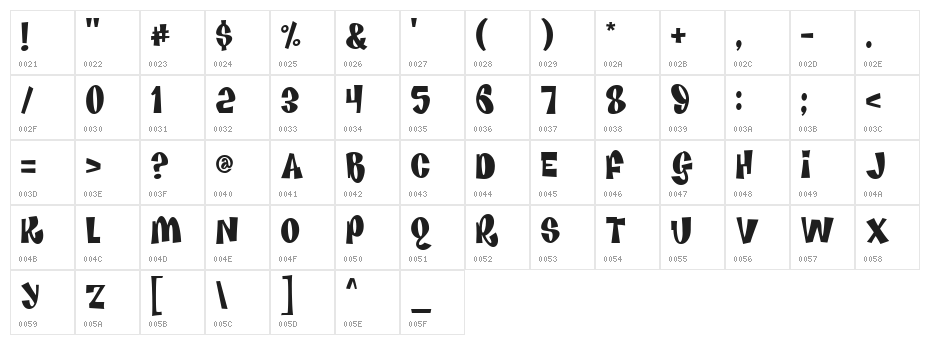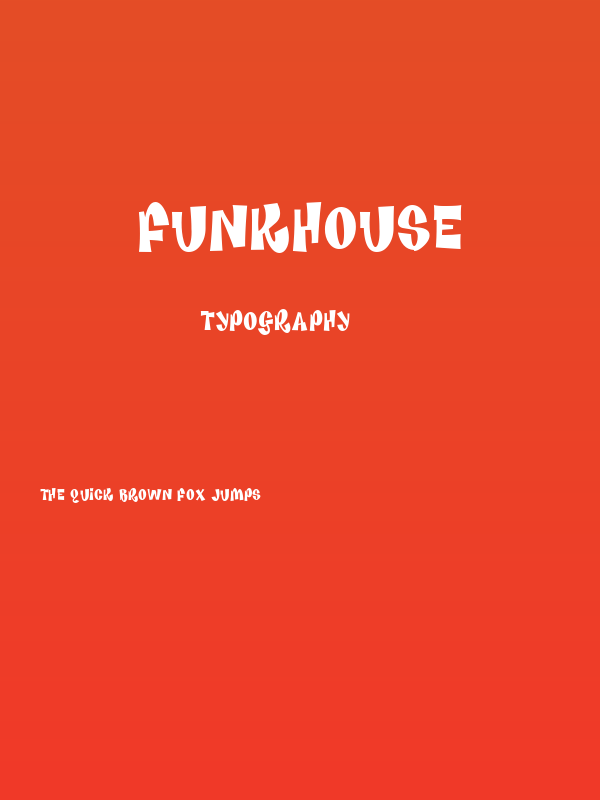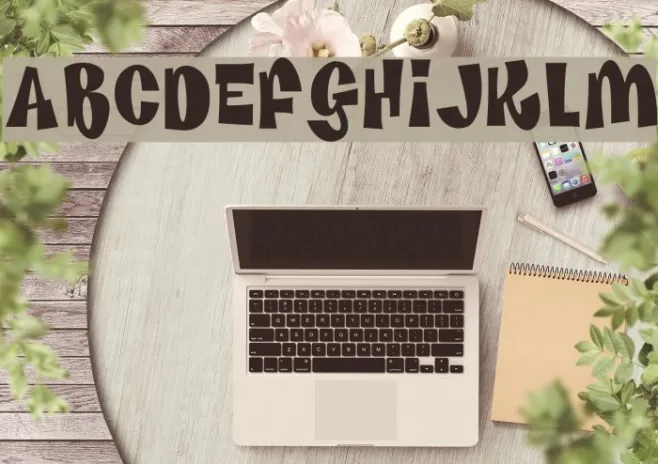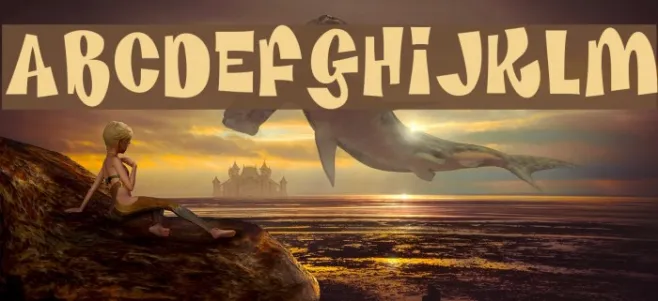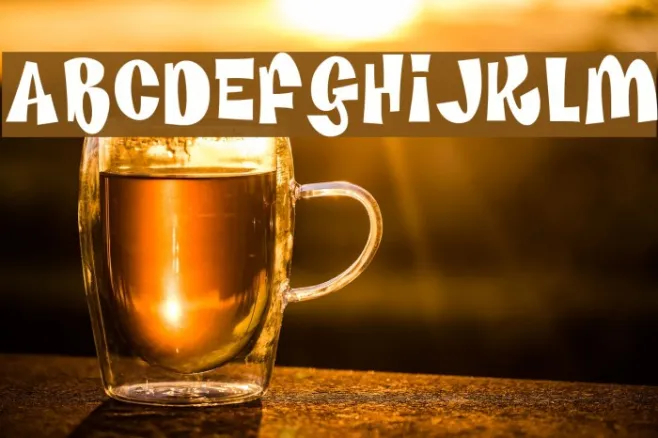
Funkhouse Font
Funkhouse Description
This font features a bold and playful design, characterized by its exaggerated curves and whimsical style. The letters have a unique, almost cartoonish appearance, with varying stroke widths that add to its dynamic look. The uppercase and lowercase letters maintain a consistent style, with the lowercase mirroring the playful nature of the uppercase. Numbers and special characters are equally bold and expressive, making them stand out. The font's overall aesthetic is both fun and eye-catching, suitable for projects that require a touch of creativity and flair.